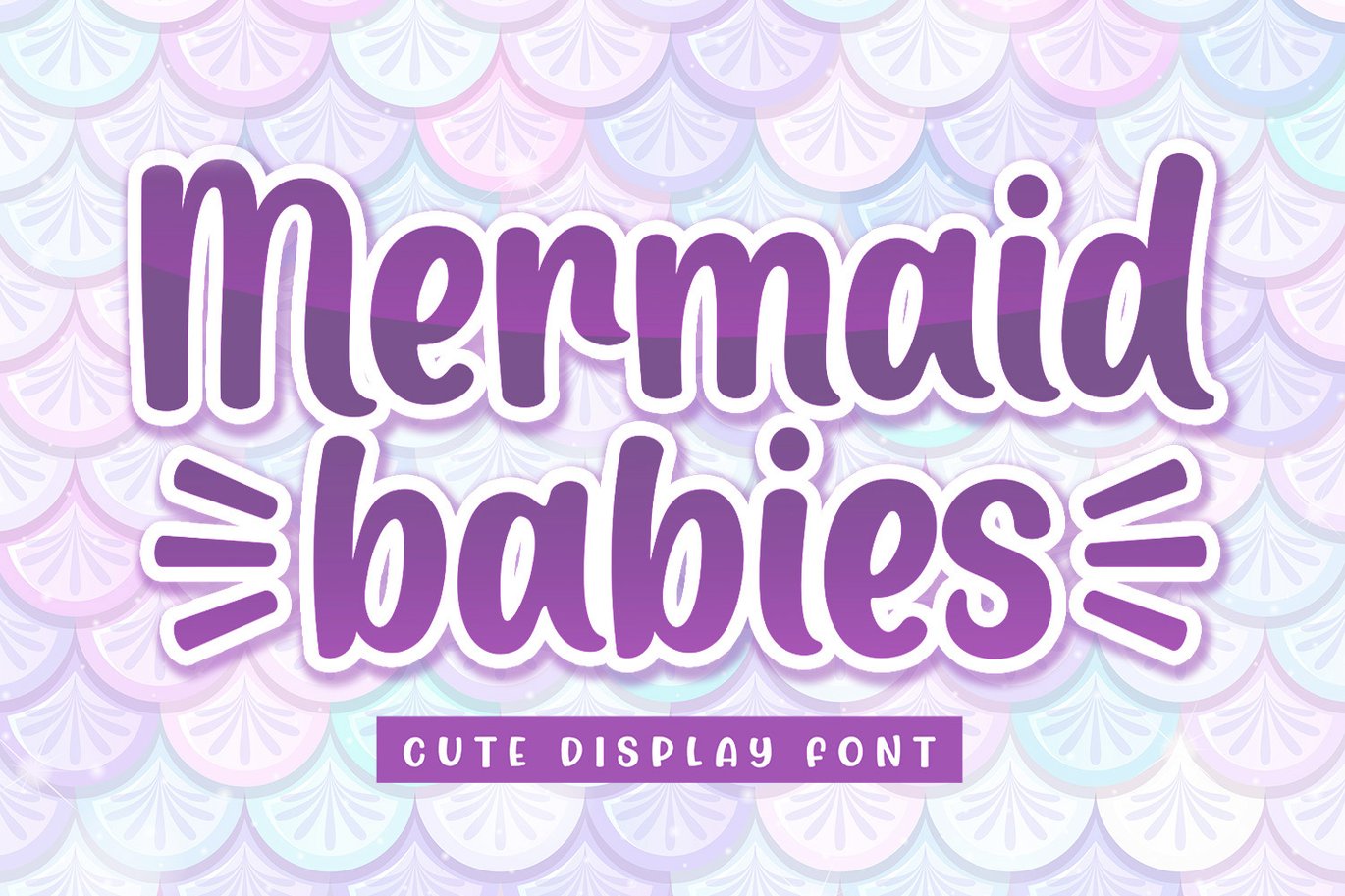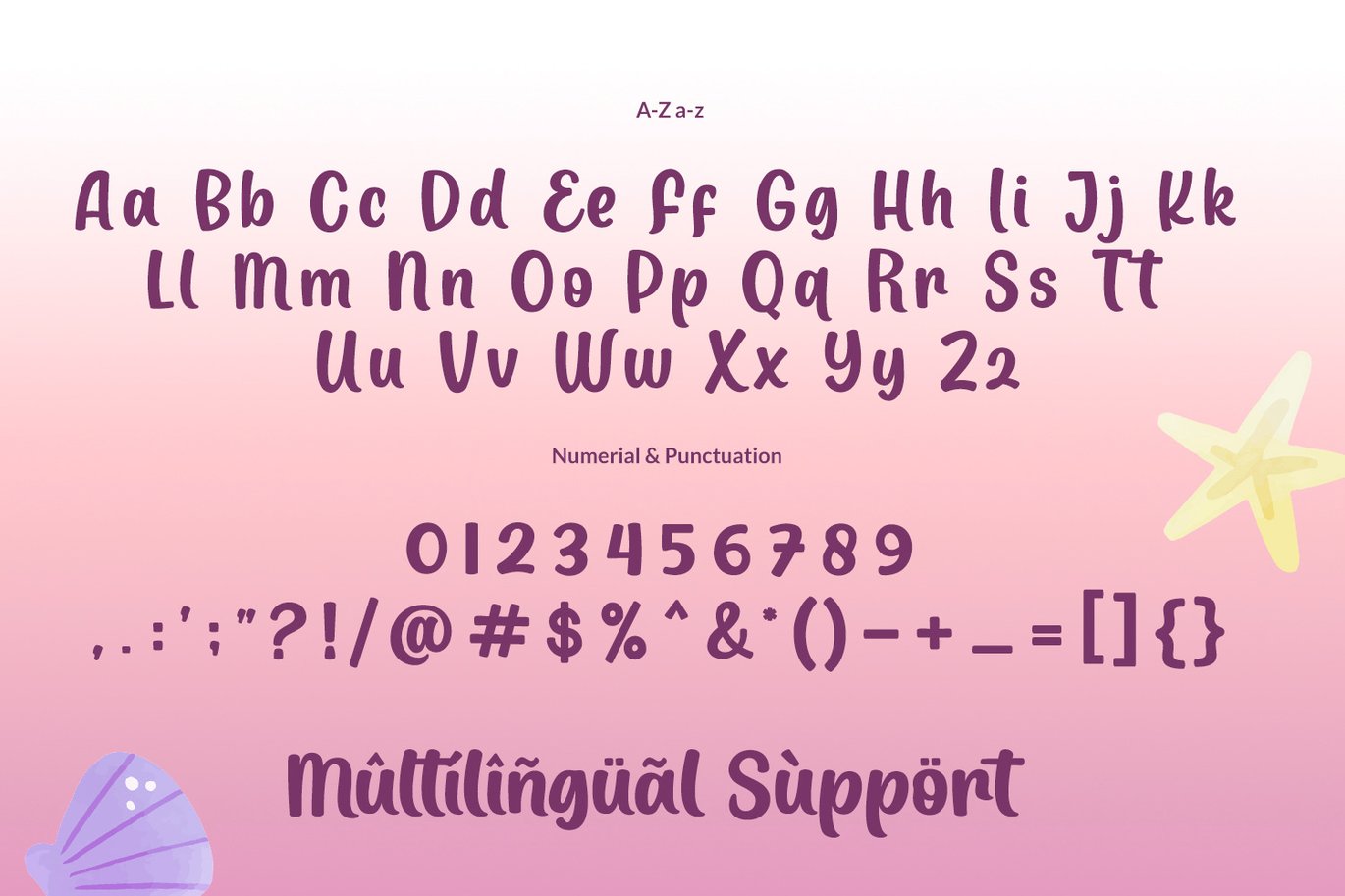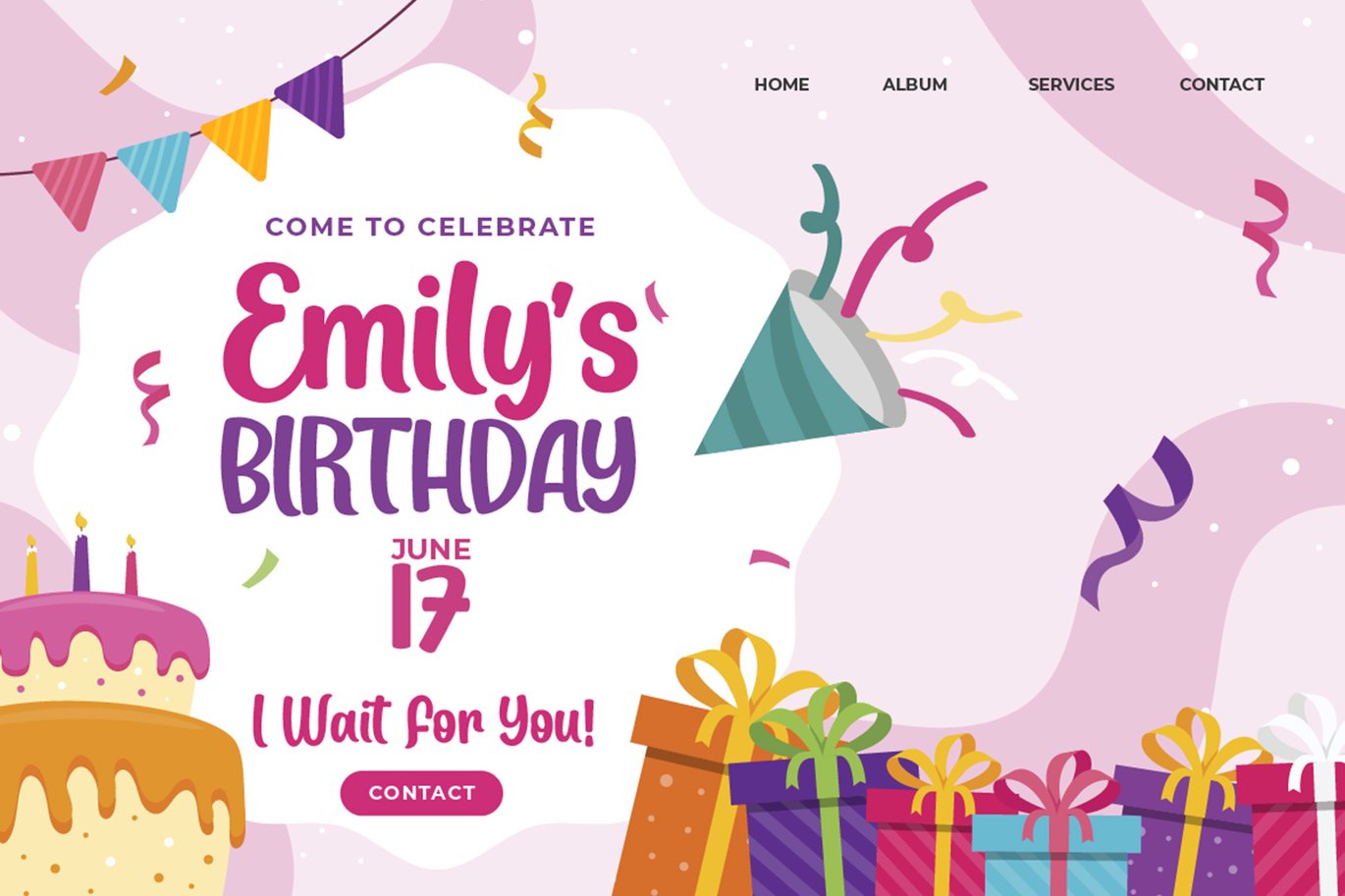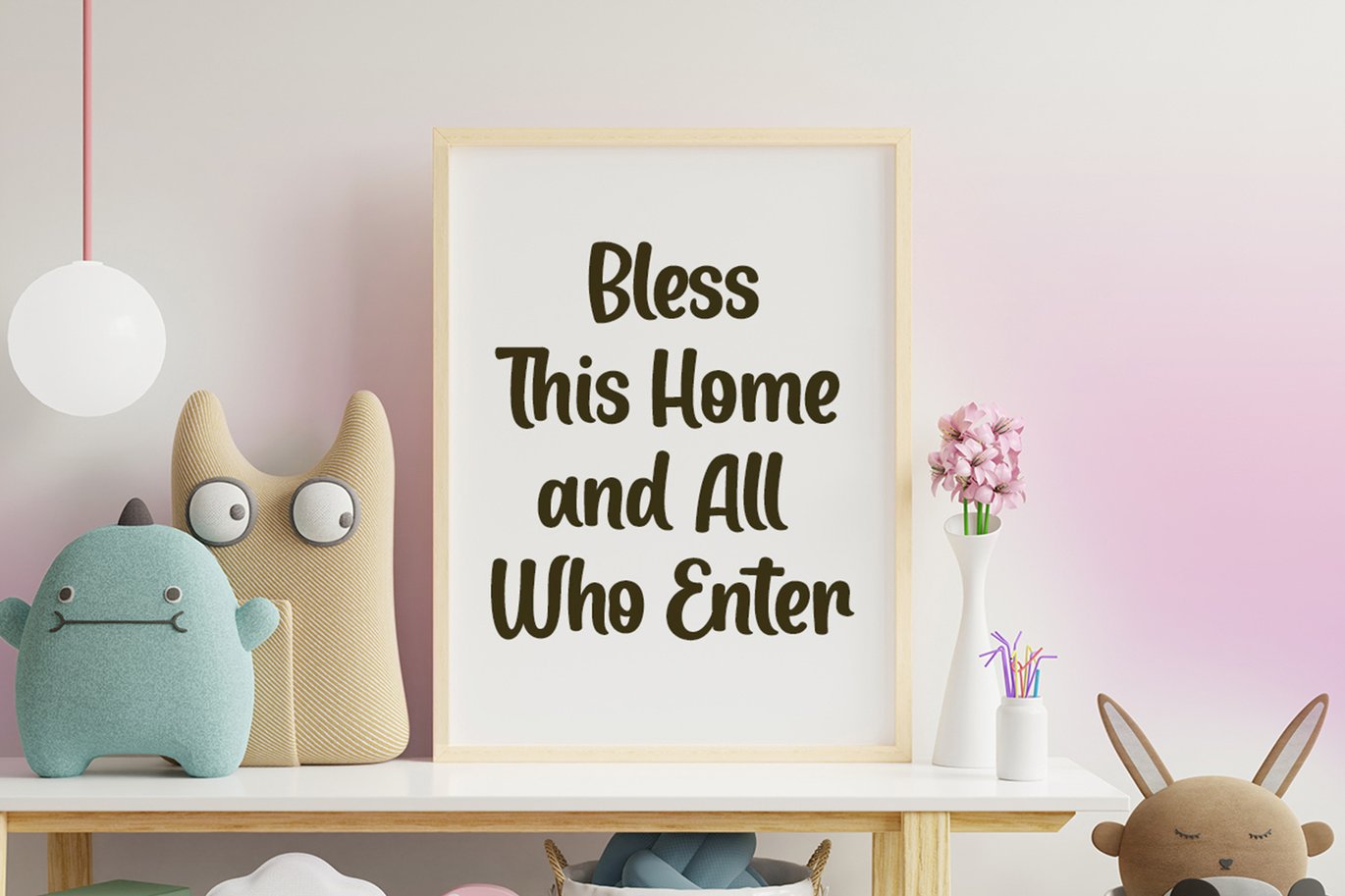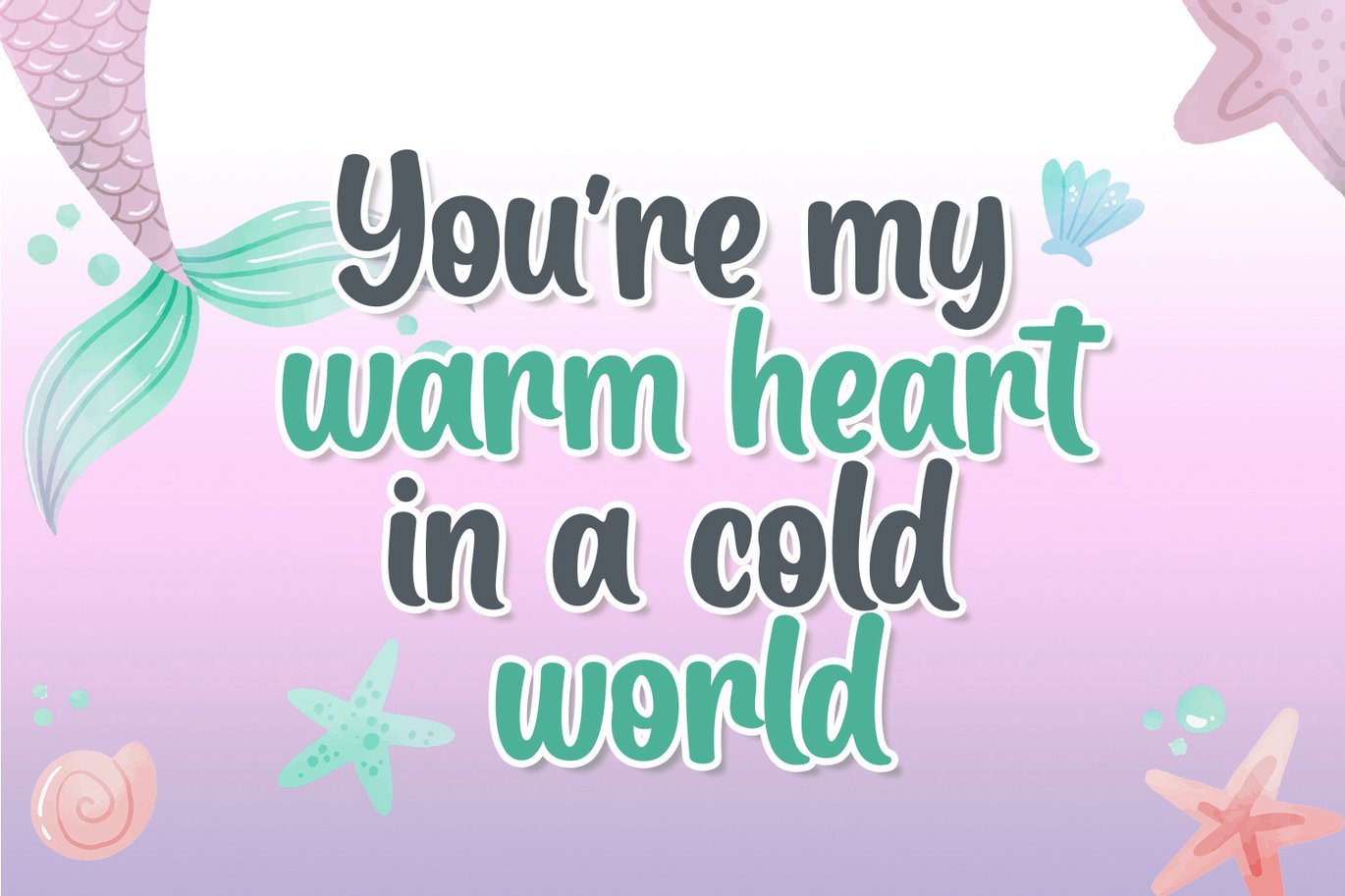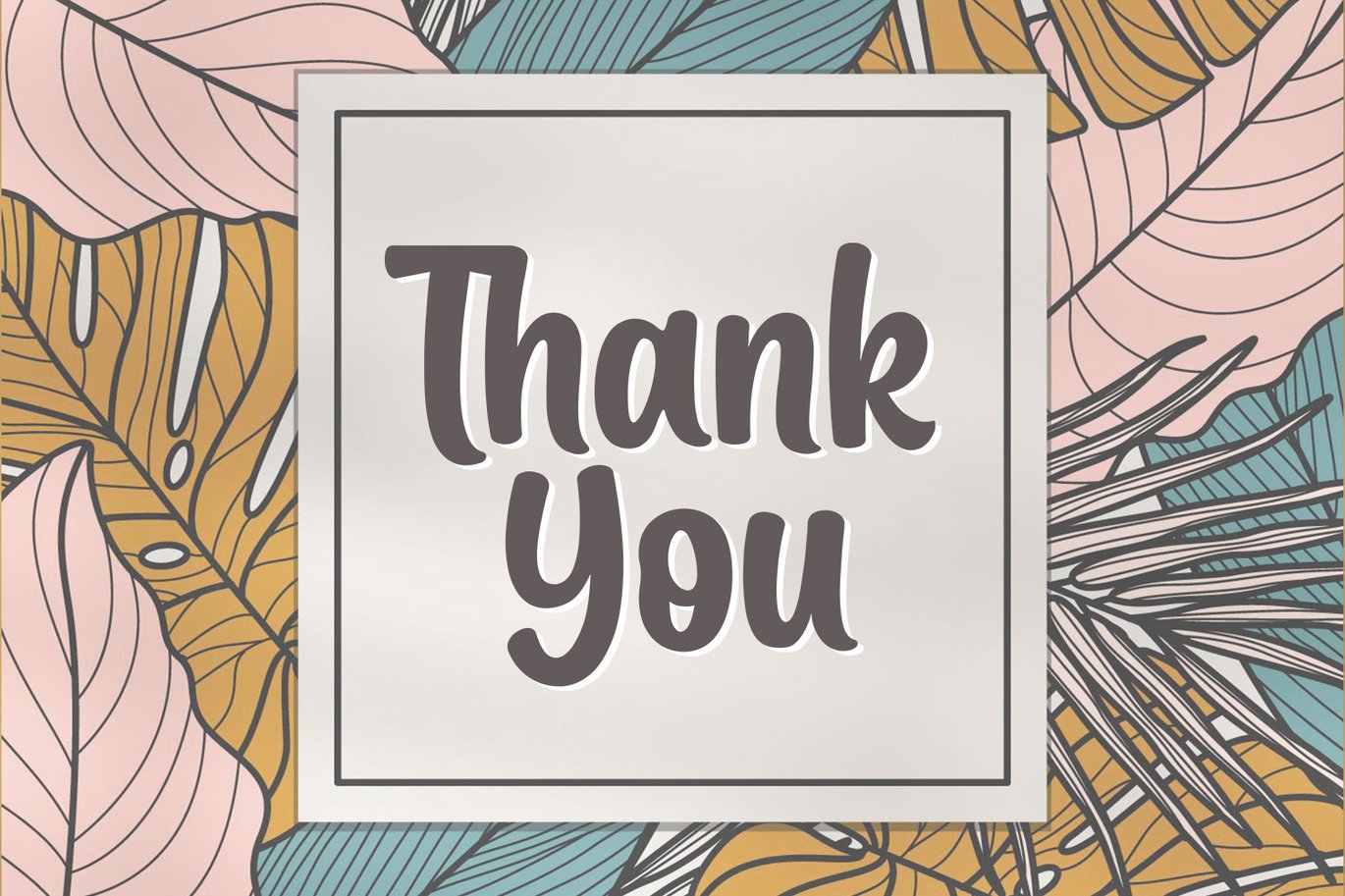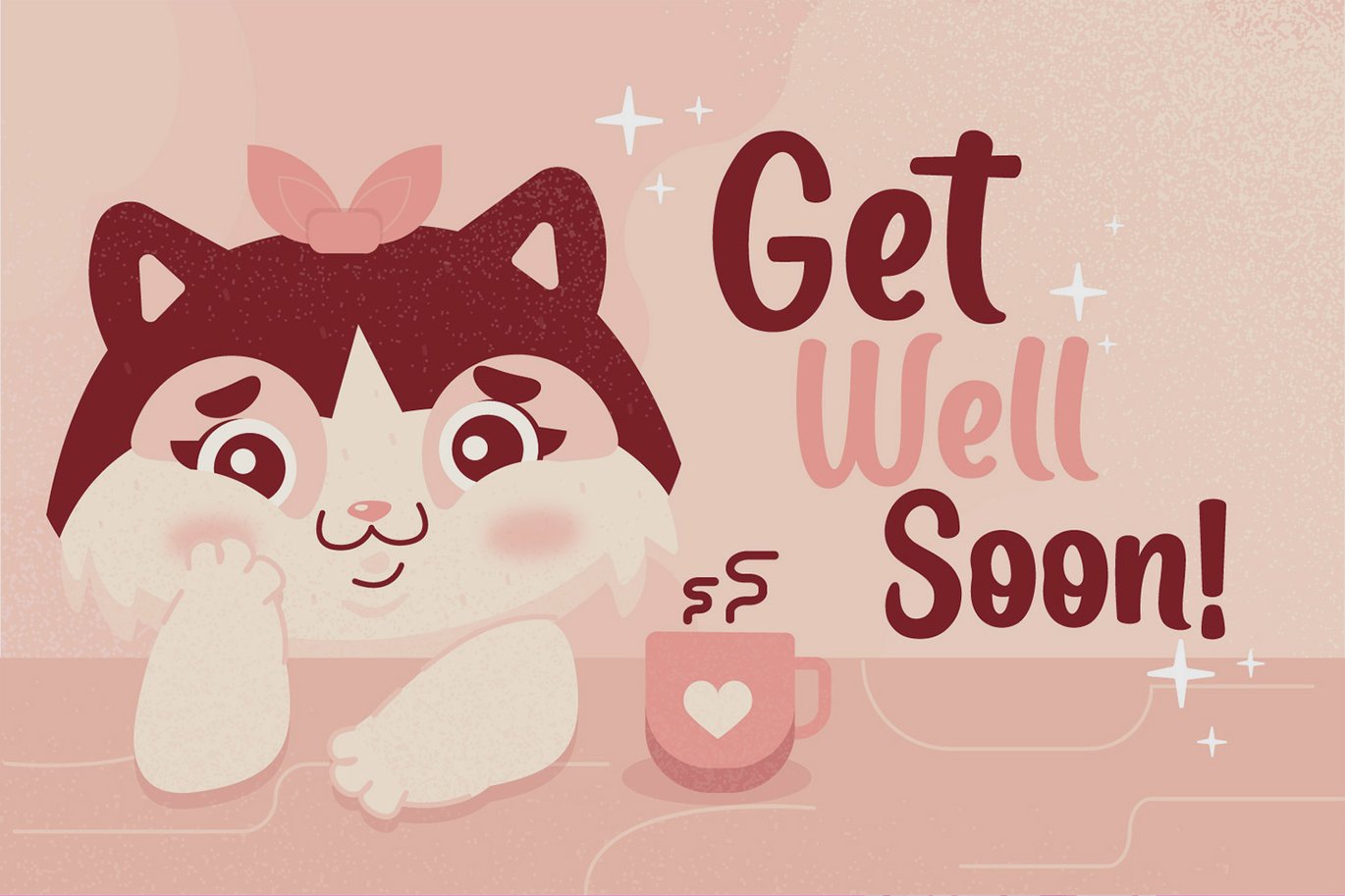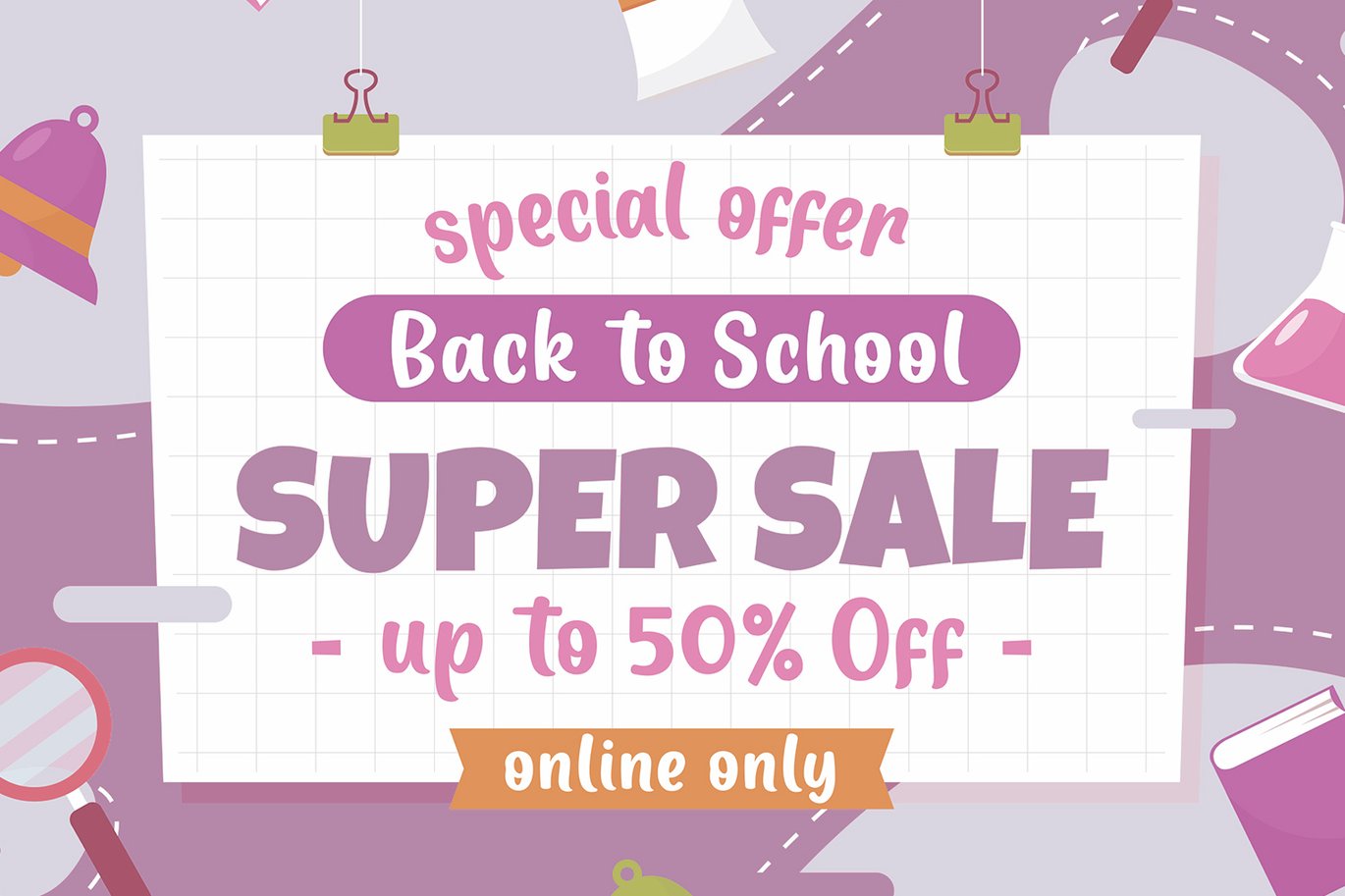
Mermaid Babies – Playful Font
Mermaid Babies is a fun, jolly and incredibly charming display font.
It embodies playfulness and authenticity and is the perfect choice
for any children activity or school project.